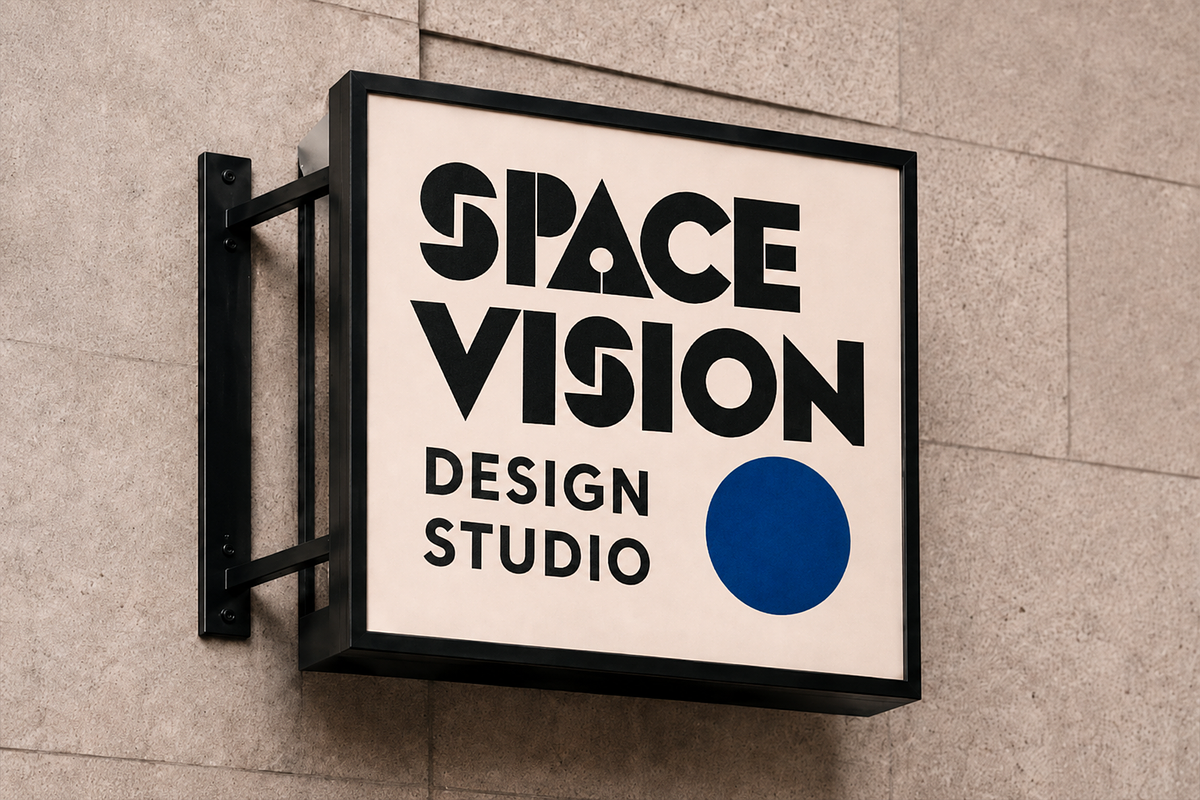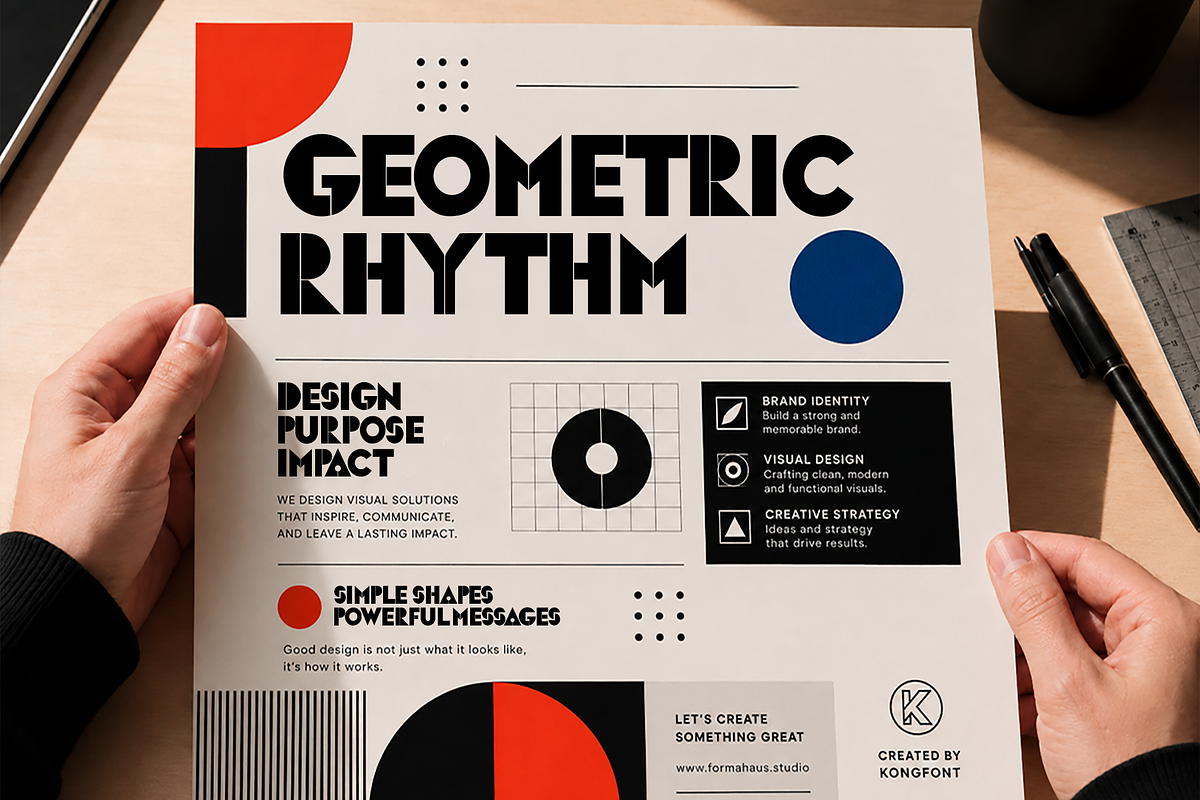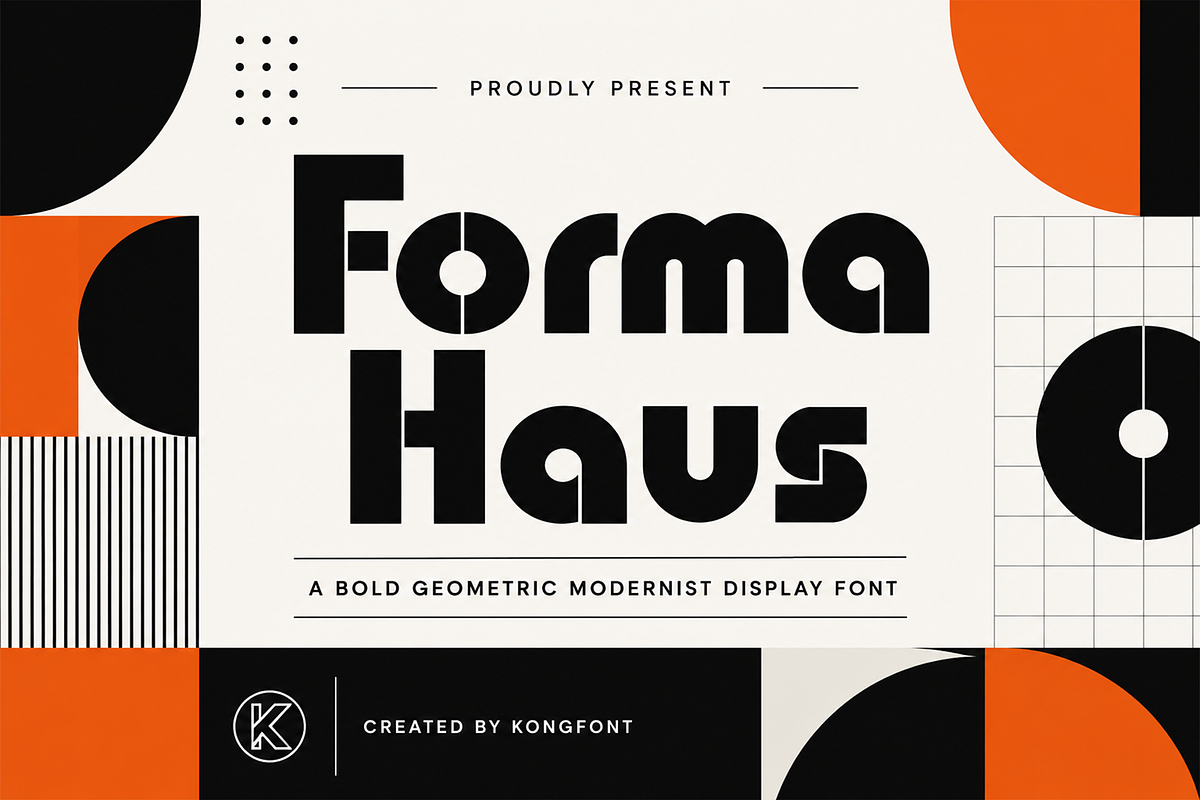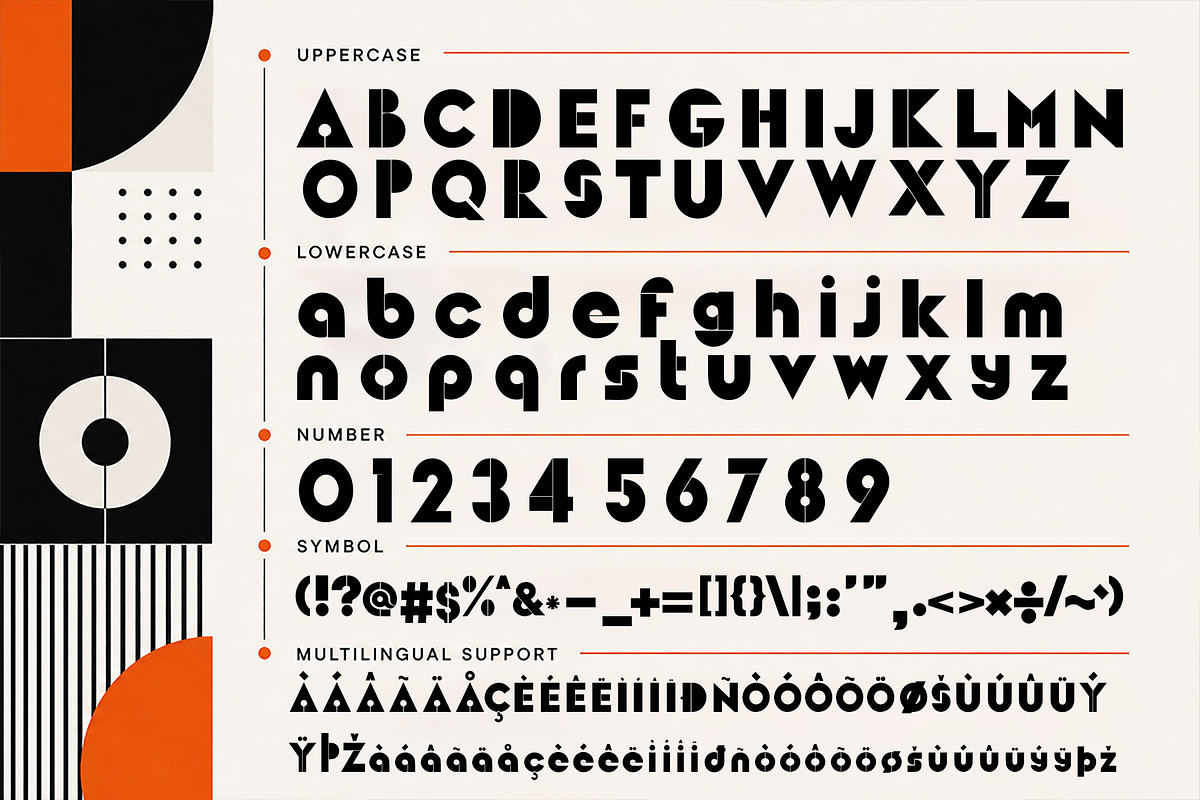
Forma Haus - Bold Geometric Display
Forma Haus - Bold Geometric Modernist Display Font
Meet "Forma Haus," a bold geometric display font inspired by modernist design, Bauhaus principles, and architectural form. Built with strong circles, clean verticals, and carefully constructed geometric shapes, Forma Haus delivers a confident visual identity that feels structured, contemporary, and unmistakably graphic.
Forma Haus is perfect for architecture studios, design agencies, fashion branding, art exhibitions, technology projects, modern packaging, magazine covers, cultural campaigns, and experimental typography. Its modernist character makes it an excellent choice for projects influenced by Bauhaus, Swiss design, geometric abstraction, and contemporary visual culture.